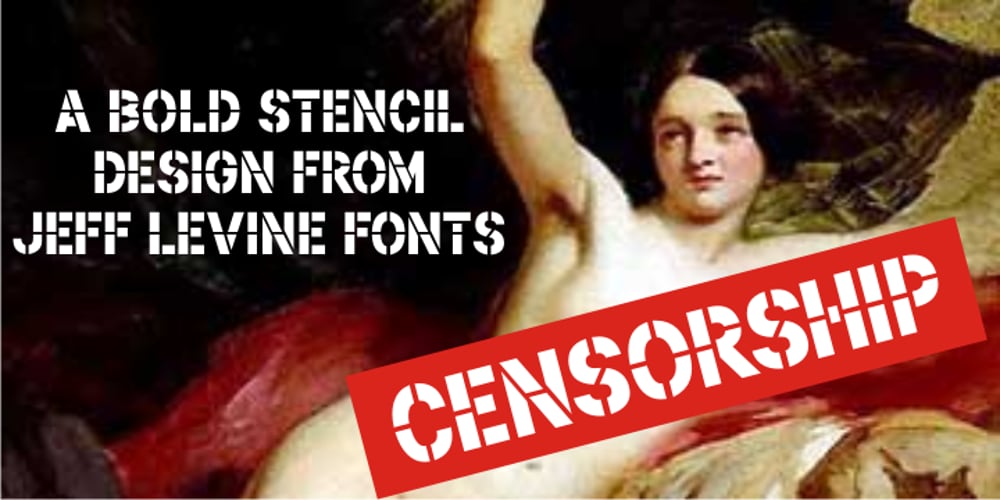
Censorship JNL Font Family was designed by Jeff Levine and published by Jeff Levine. Censorship JNL contains 1 styles and family package options. Censorship JNL joins the wide array of stencil-themed fonts from Jeff Levine. An advantage to this particular design is the larger amount of stencil sections per letter or number. When used with a plotter/cutter, stencils in excess of 12 inches high can be cut into masking material without the cut-out characters becoming floppy or unstable.